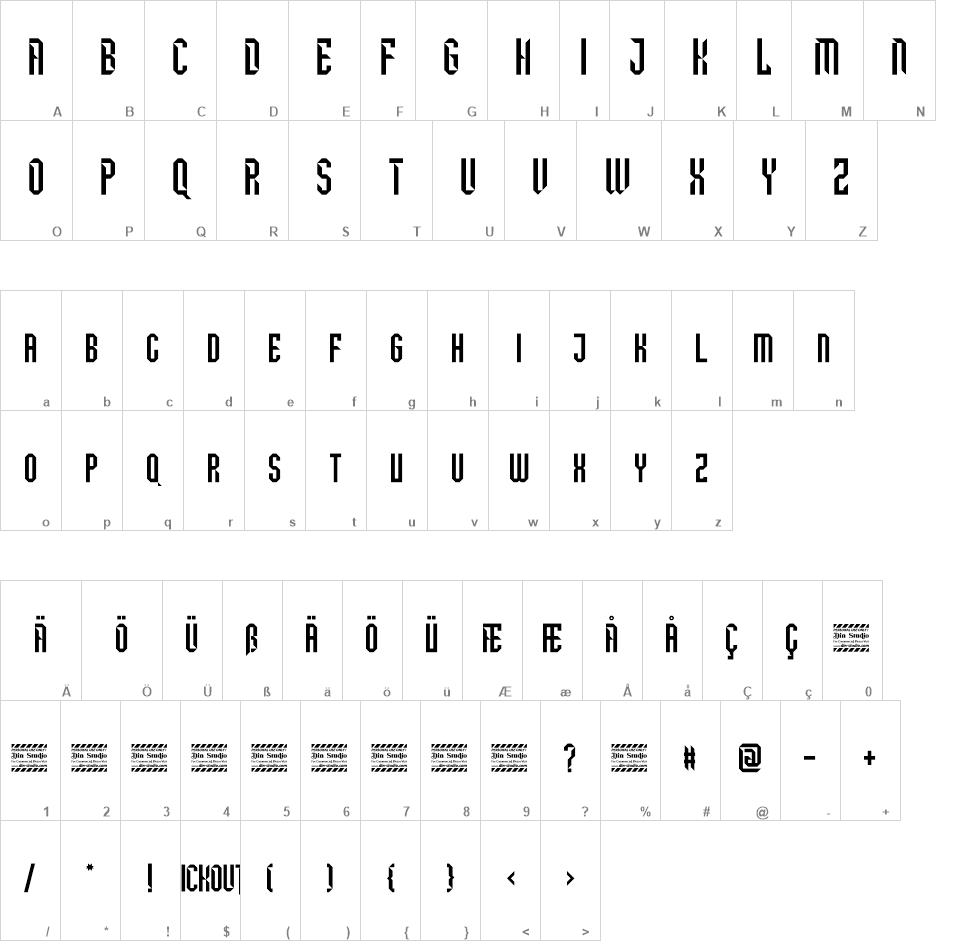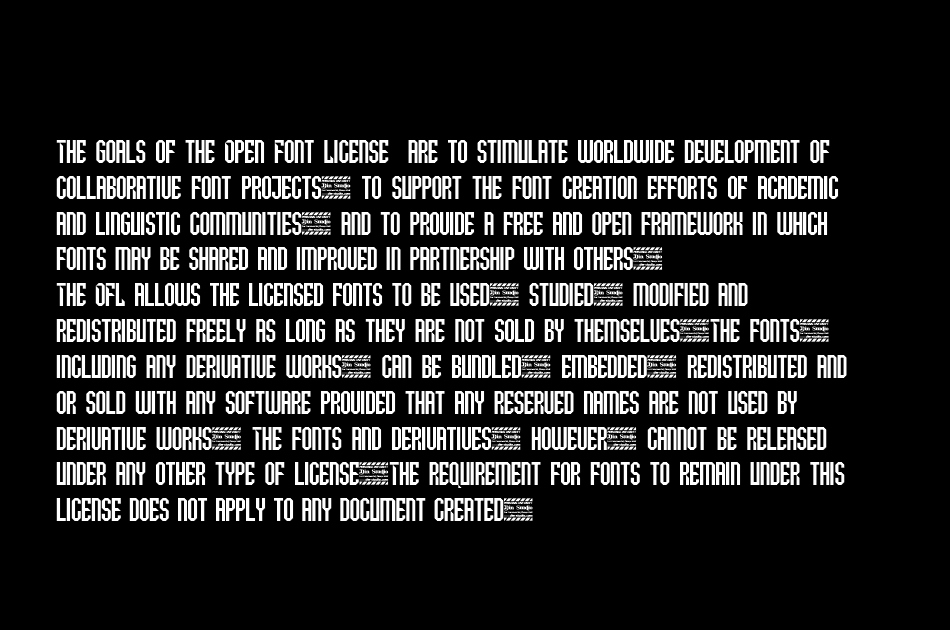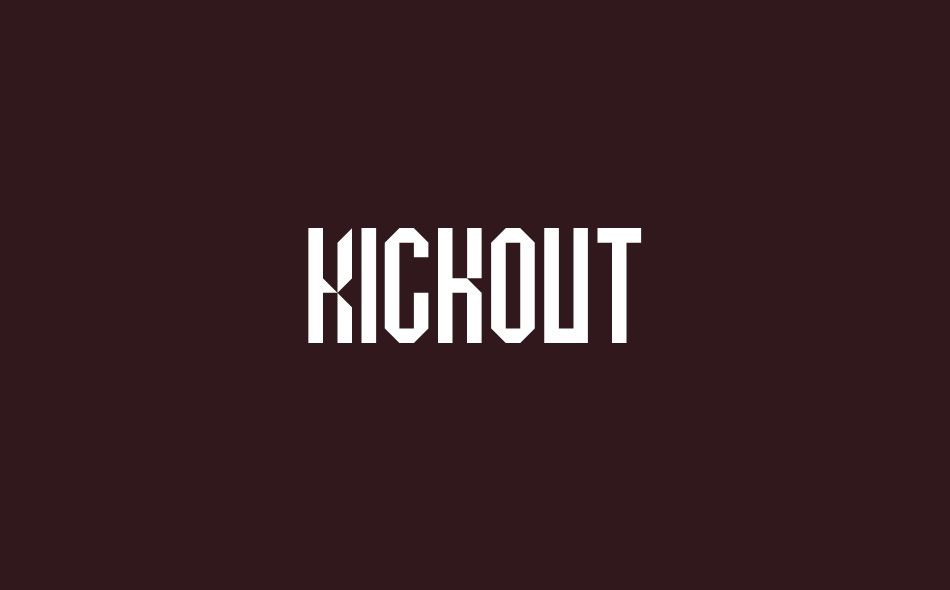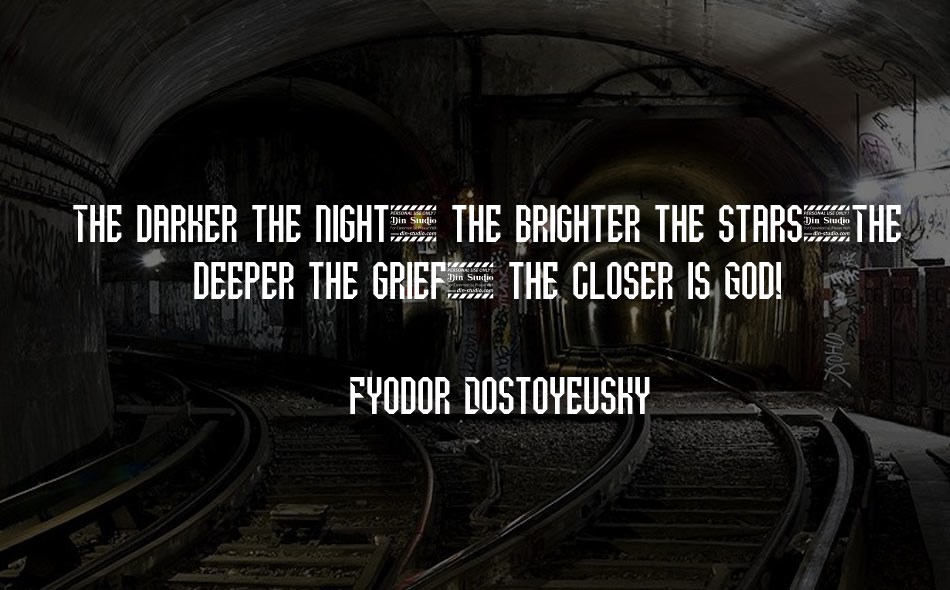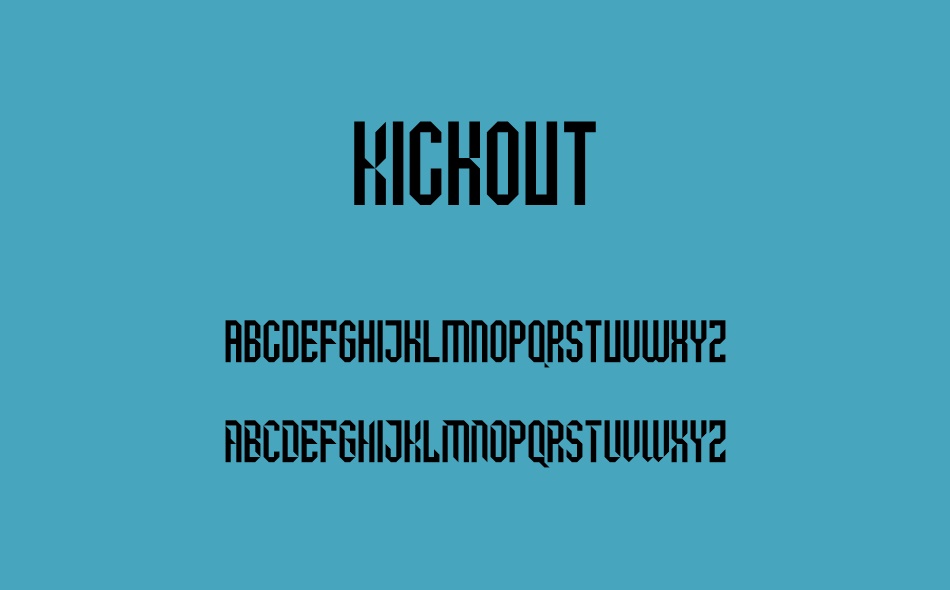
Kickout font
Kickout is a classic sport font. Made for any professional project especially that related to the sports.
Beside that, this font can be used for printing, branding and quotes.